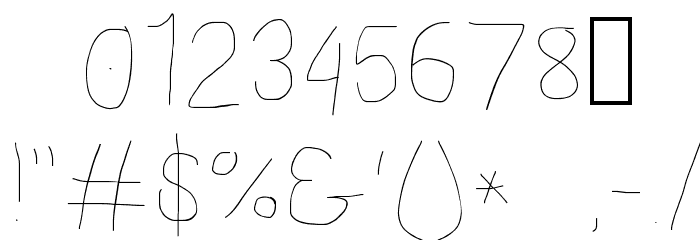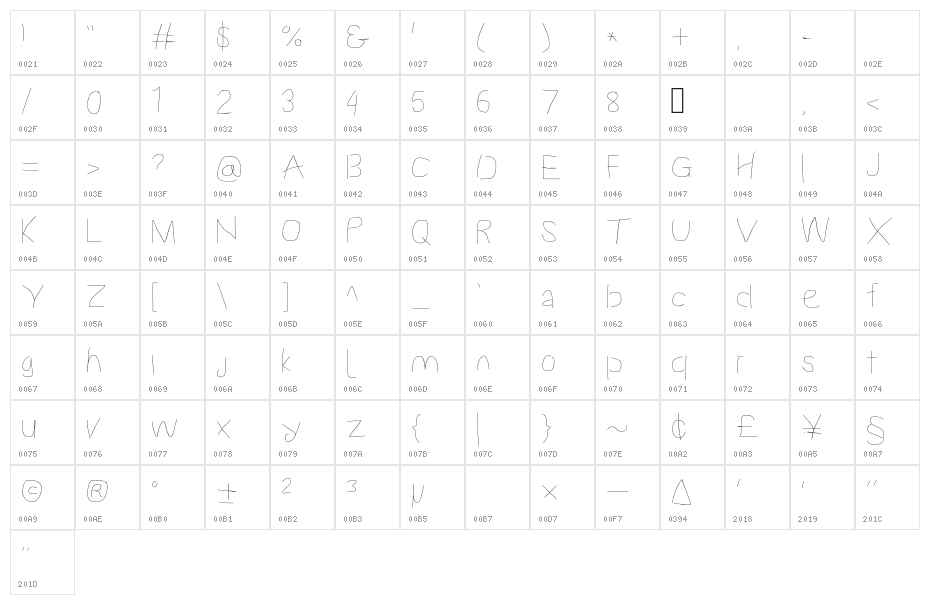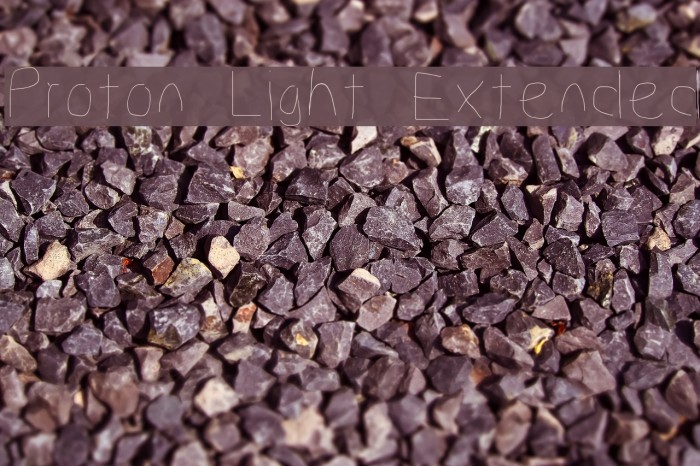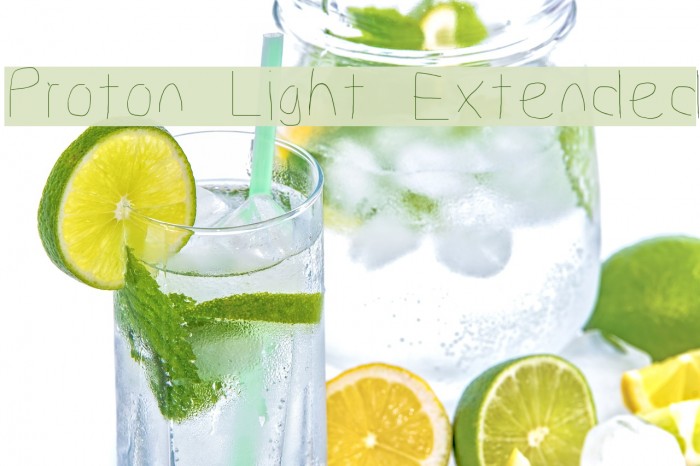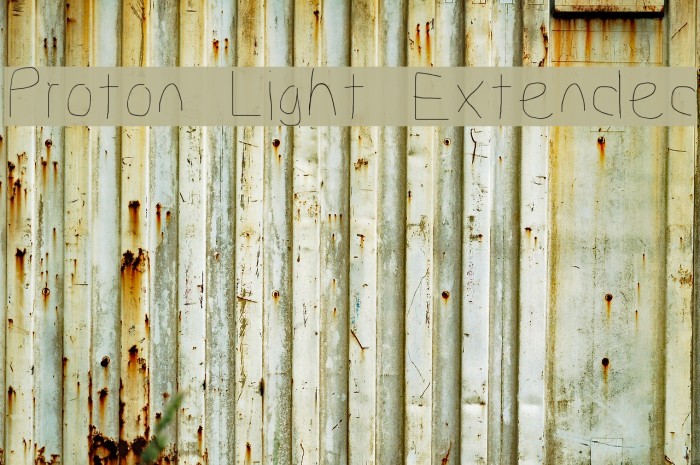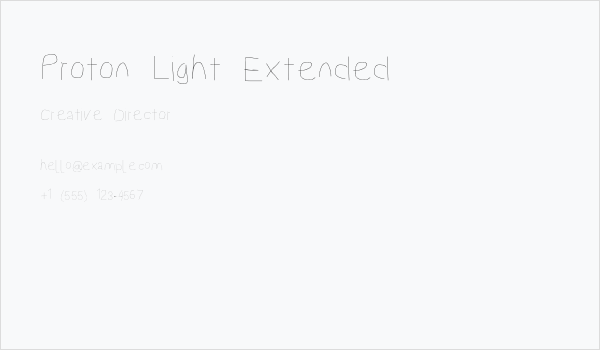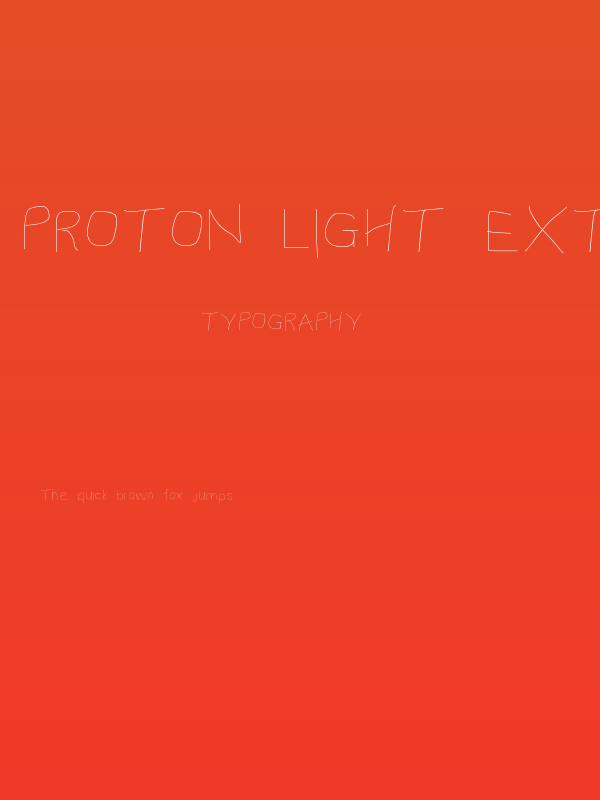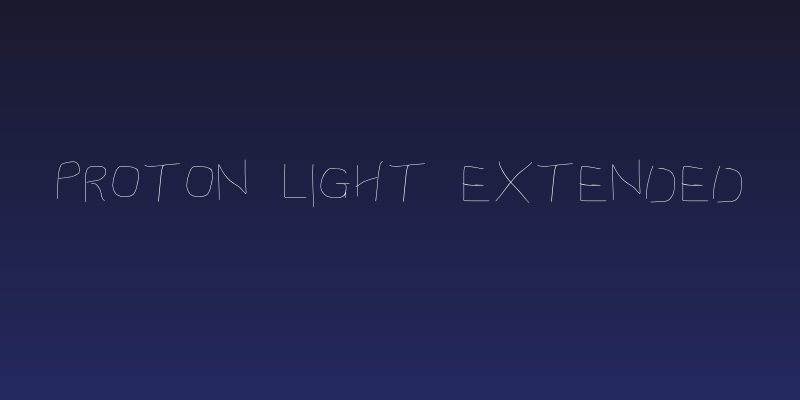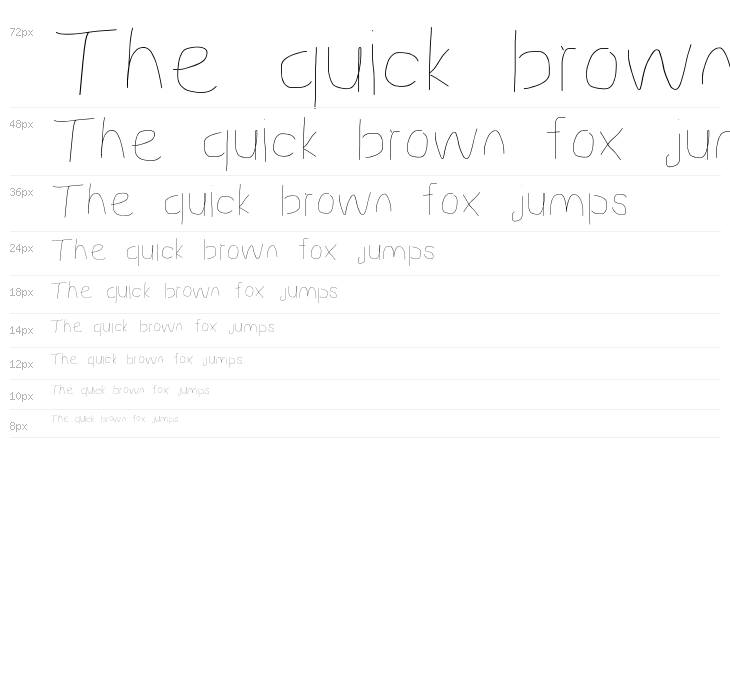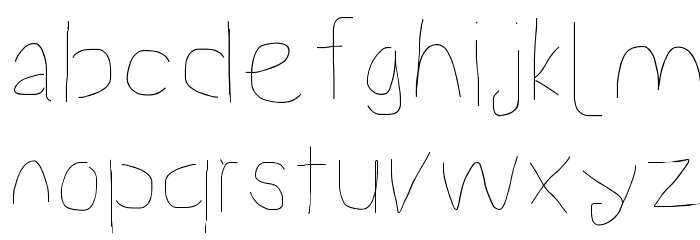
Proton Light Extended Font
Proton Light Extended Description
This font features a light, airy design with an extended width, giving it a modern and open appearance. The characters are crafted with thin strokes, providing a delicate and elegant look. The uppercase and lowercase letters maintain a consistent style, with smooth curves and minimalistic lines. Numbers and special characters are designed to complement the alphabet, maintaining the same thin and extended characteristics. This font's simplicity and clarity make it suitable for a variety of design applications.
| Proposed Projects | Ideal for modern branding, minimalist posters, and clean website headers. |